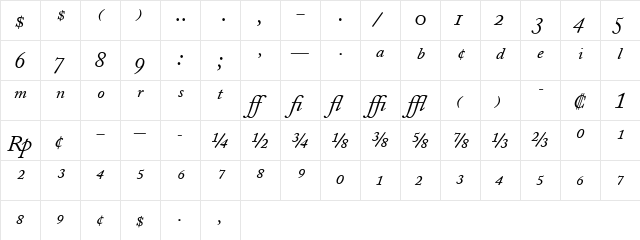
ACaslonExp Regular Italic
Design Context for ACaslonExp Regular Typeface
ACaslonExp Regular is a composed and adaptable typeface that performs quietly and consistently across a wide range of design contexts. The slanted form adds forward momentum and visual energy.
Pro Tip: Try ACaslonExp Regular for annotation and caption copy alongside an upright companion — the contrast in angle creates a dynamic but ordered typographic system.